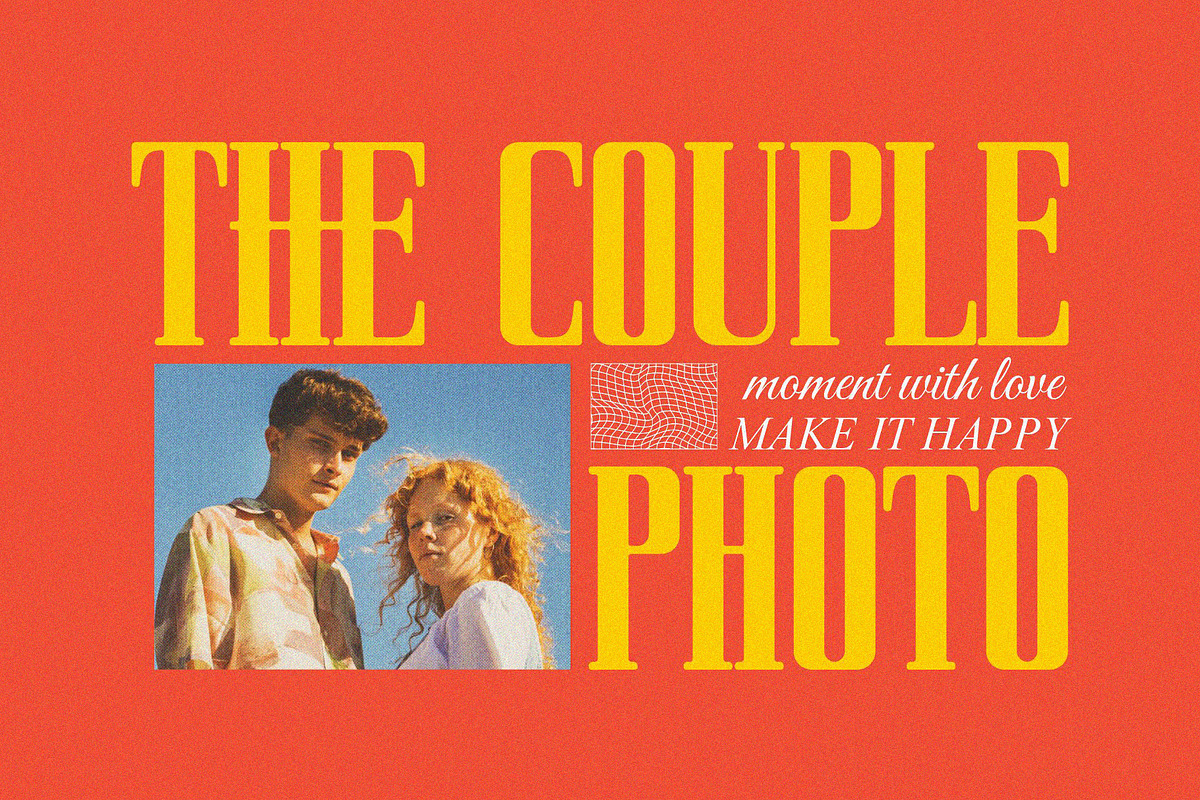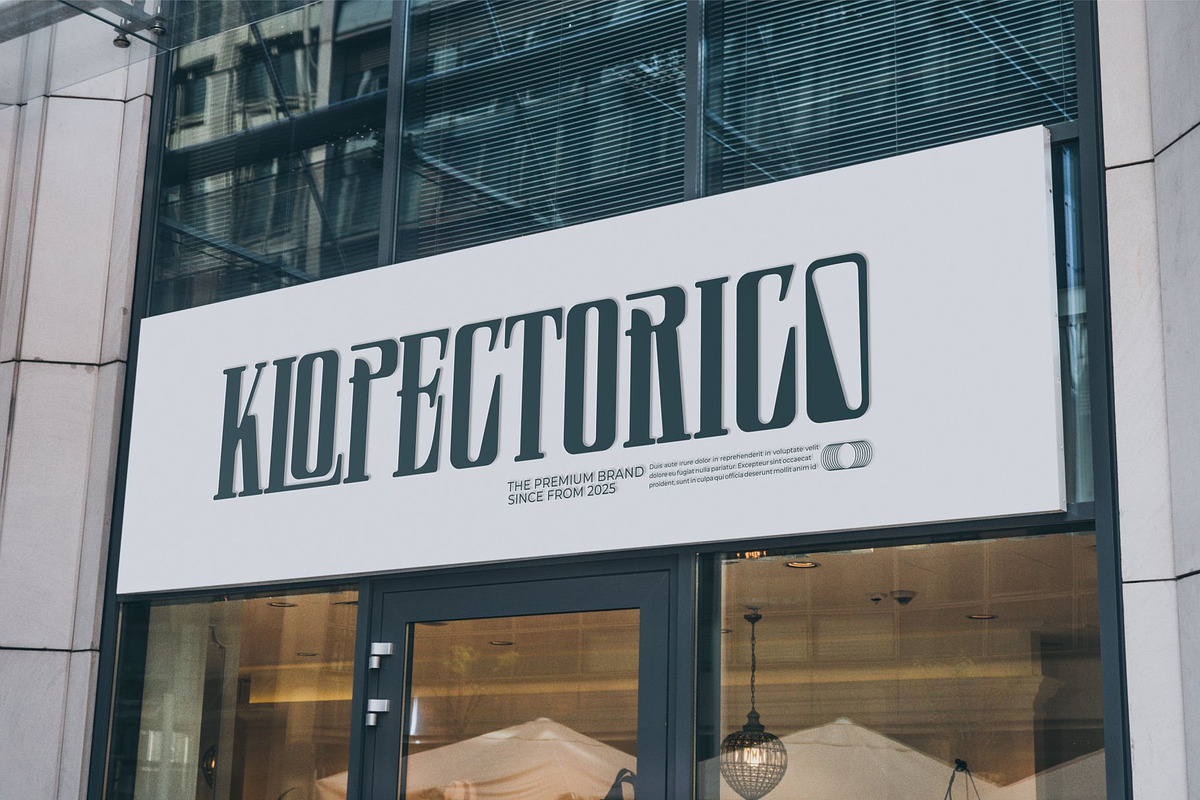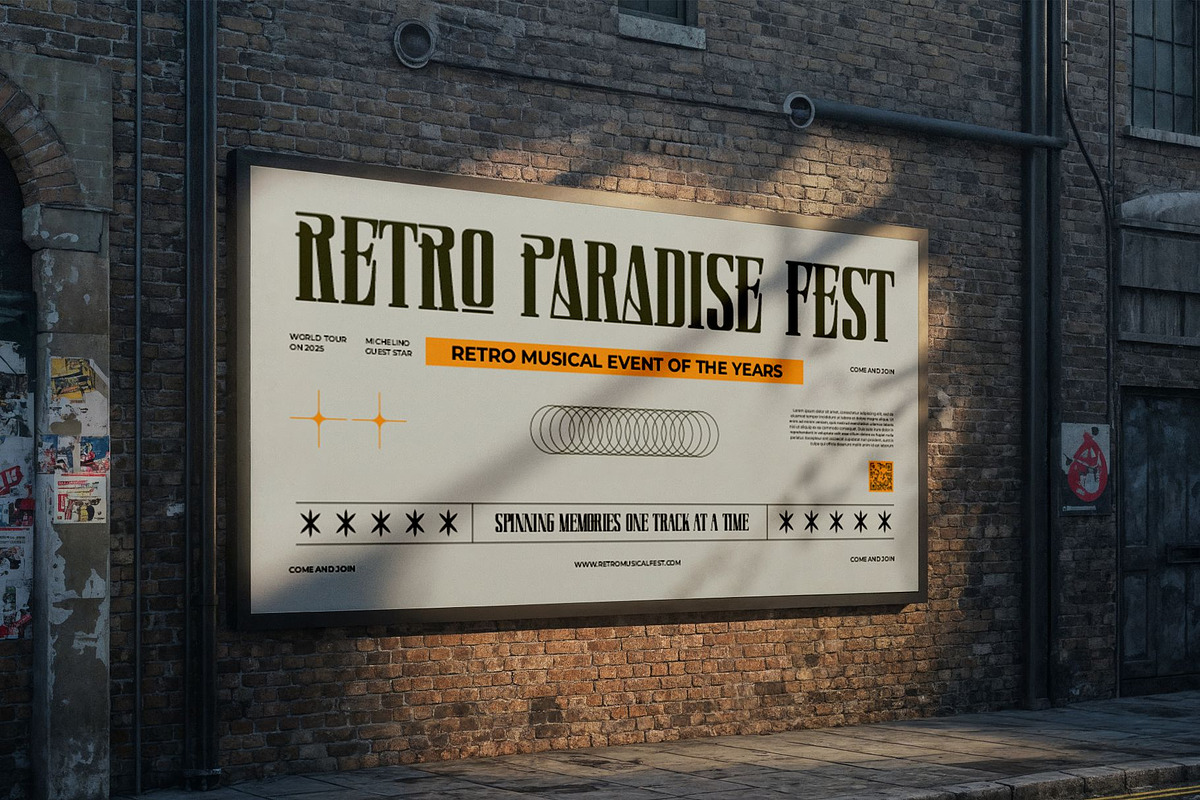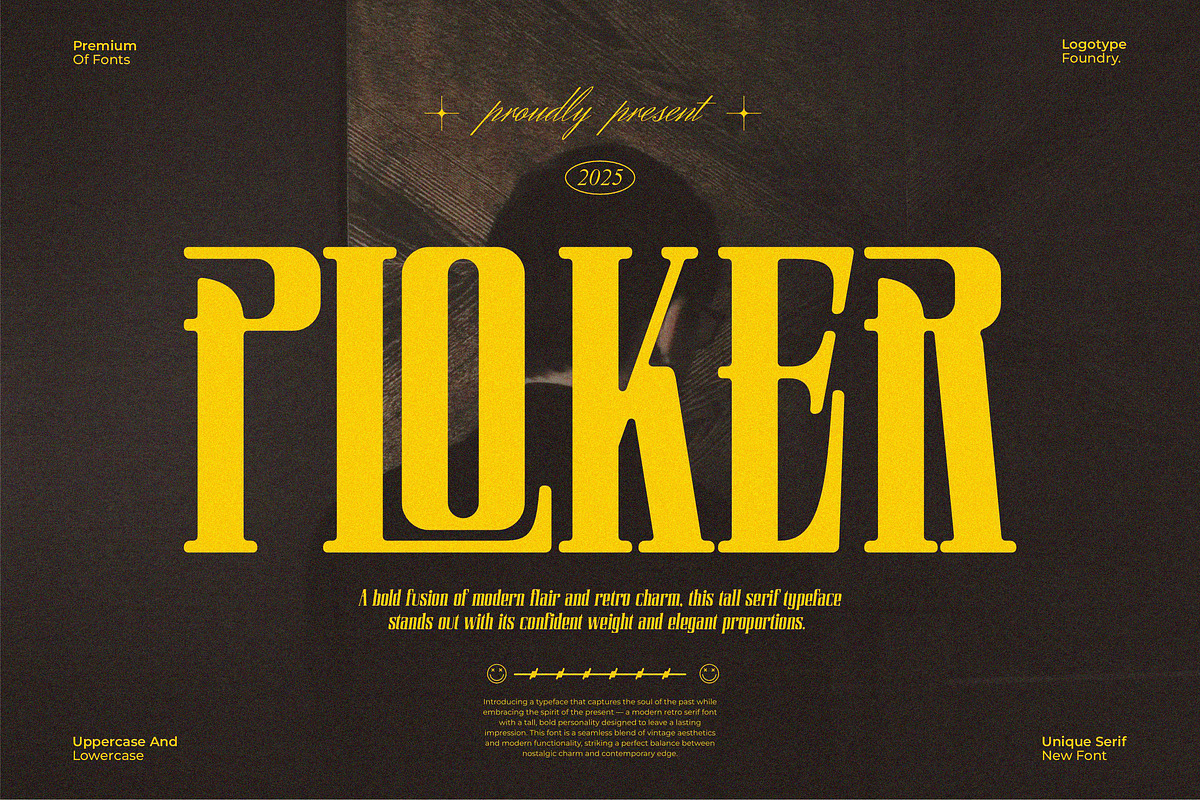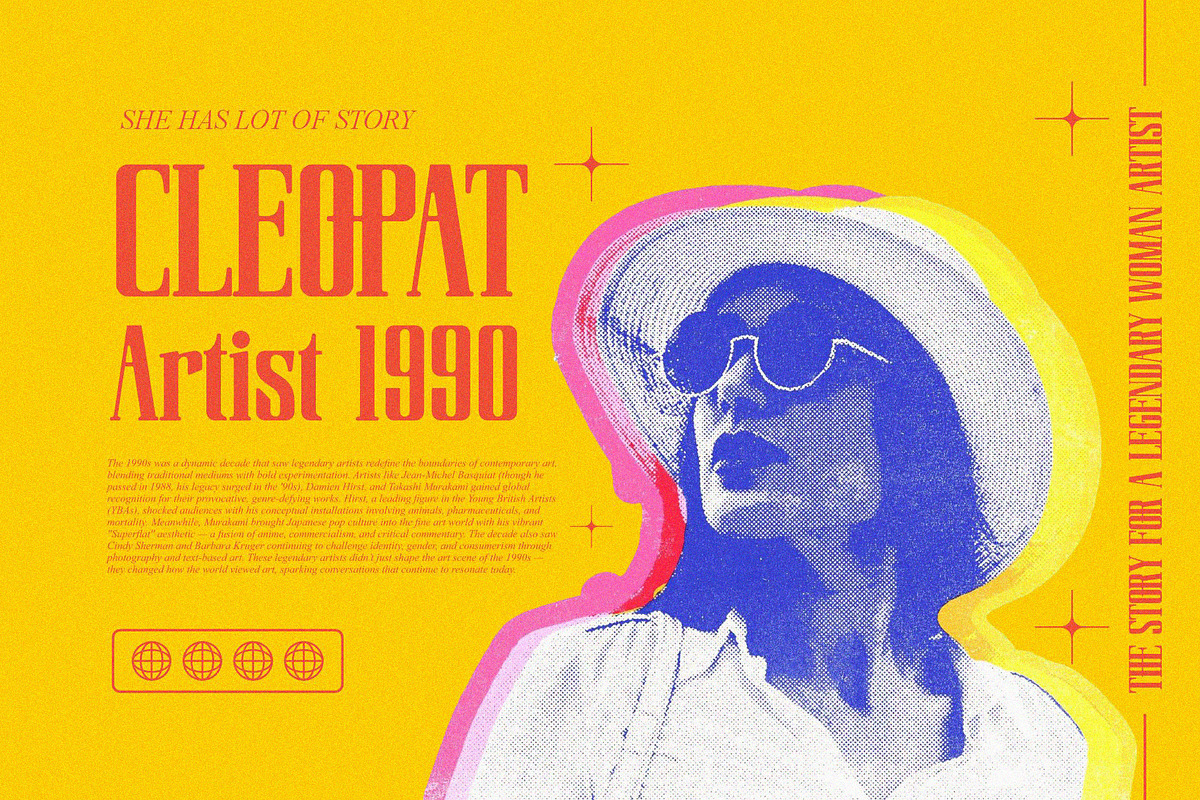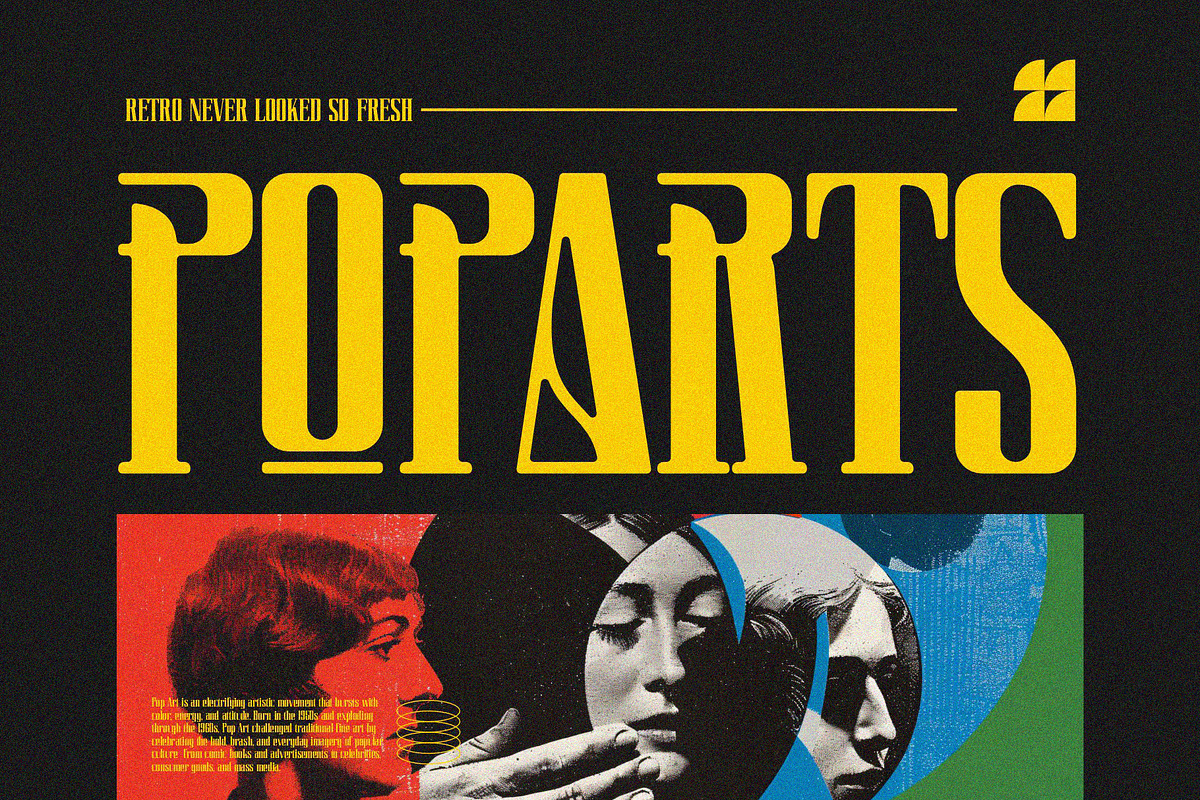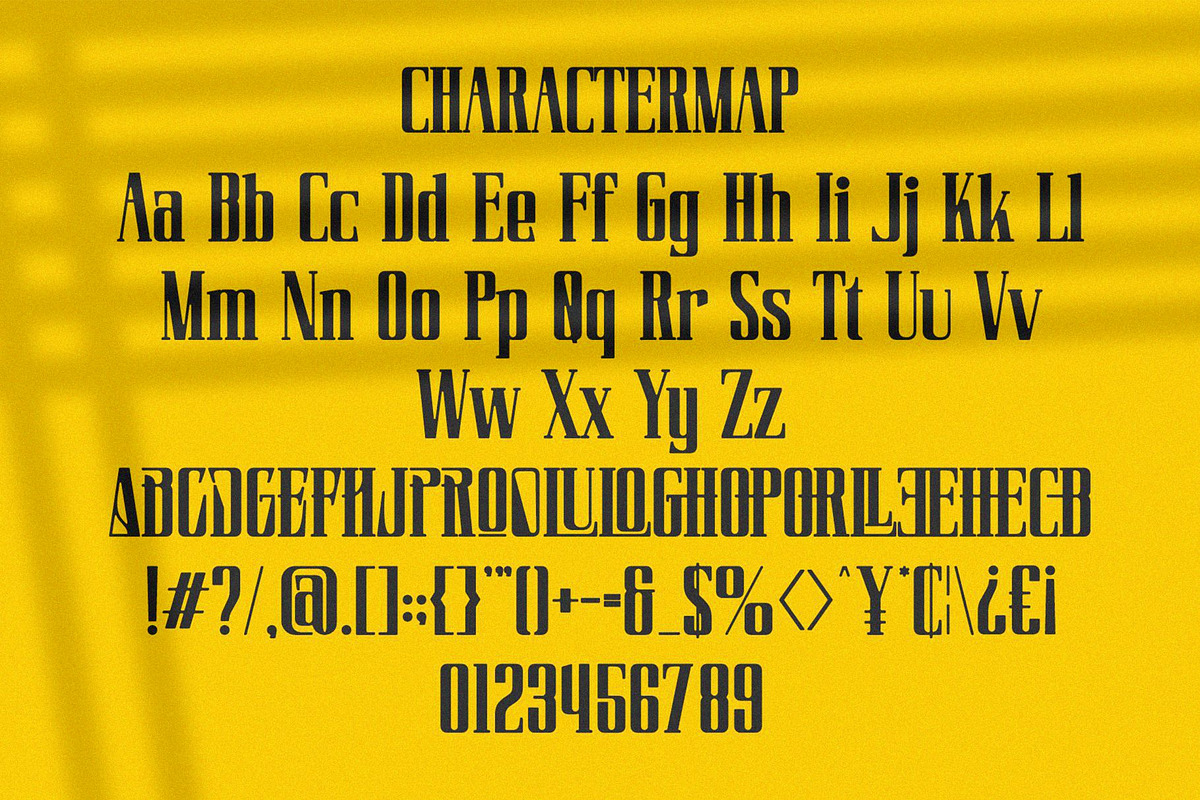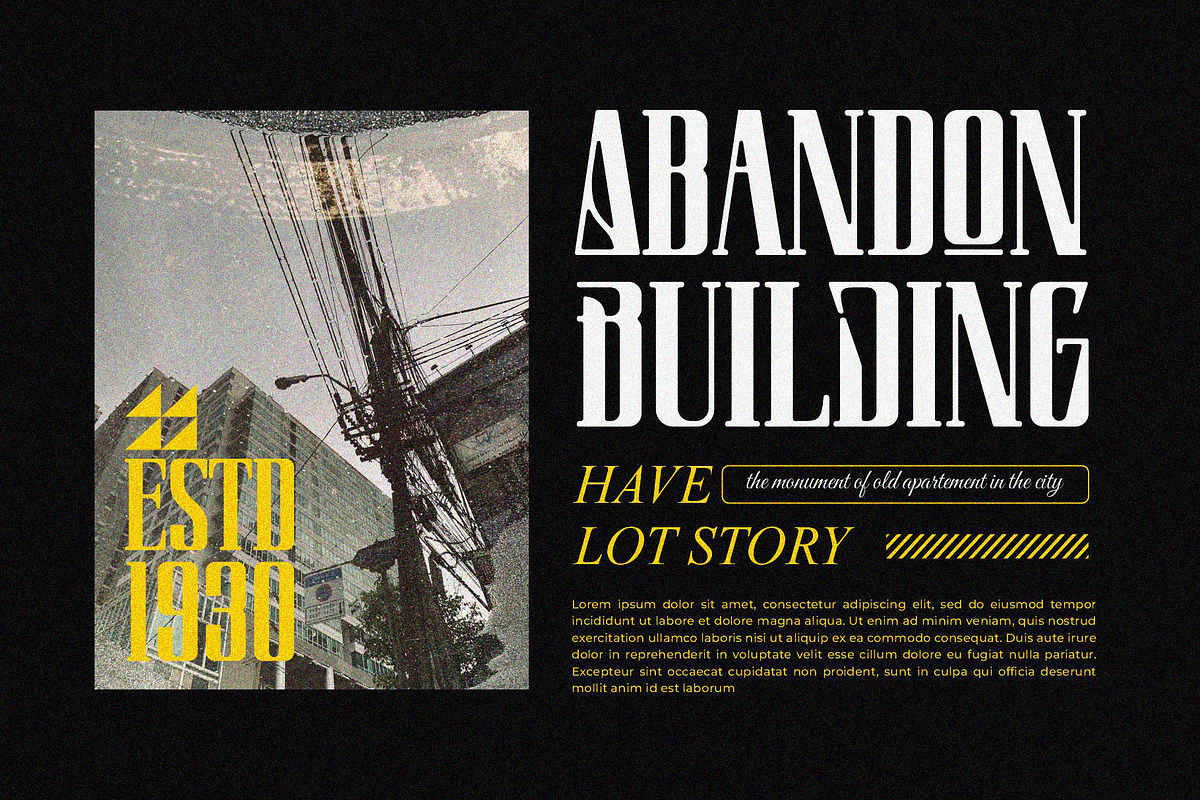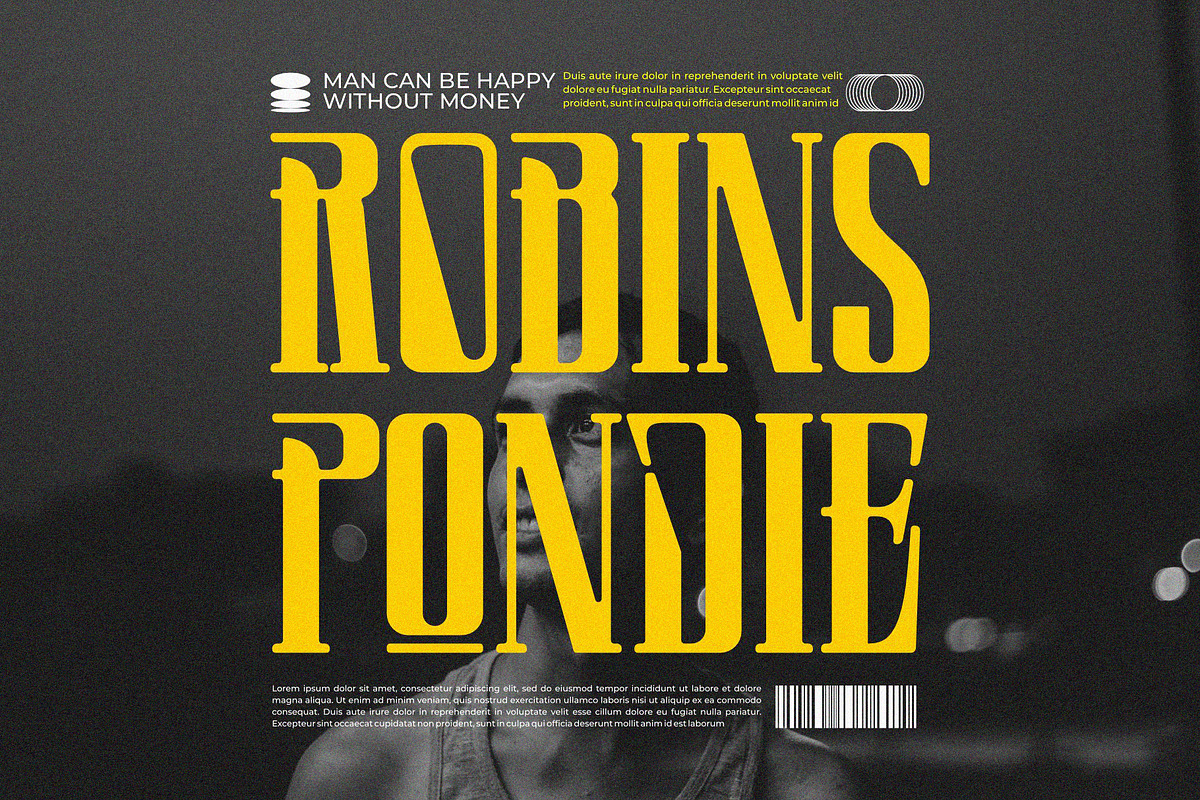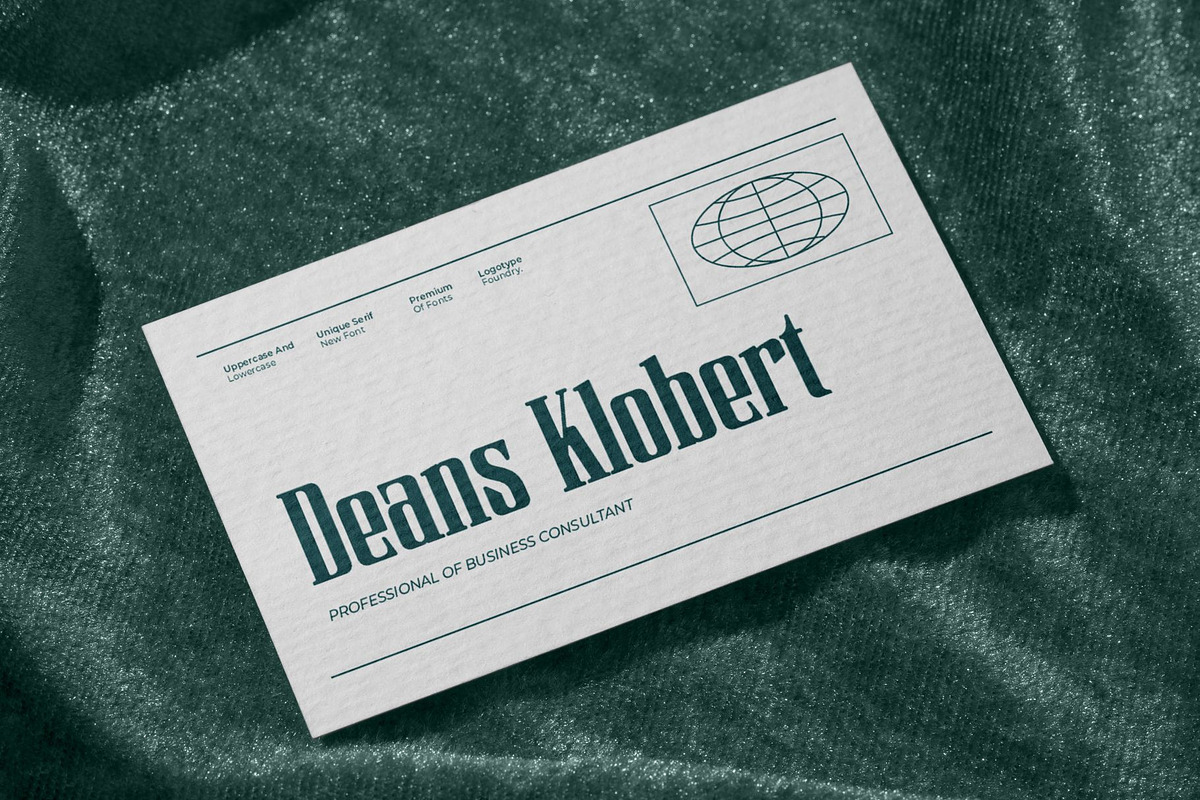
Ploker || Modern Retro Condensed Ser
Introducing Ploker typeface that captures the soul of the past while embracing the spirit of the present — a modern retro serif font with a tall, bold personality designed to leave a lasting impression. This font is a seamless blend of vintage aesthetics and modern functionality, striking a perfect balance between nostalgic charm and contemporary edge., trendy, elegant and stylish font. It has a unique character. It is perfect to be combined with invitation card designs, company logos, movie titles, movie names, business cards, book titles, brand names and various other designs.